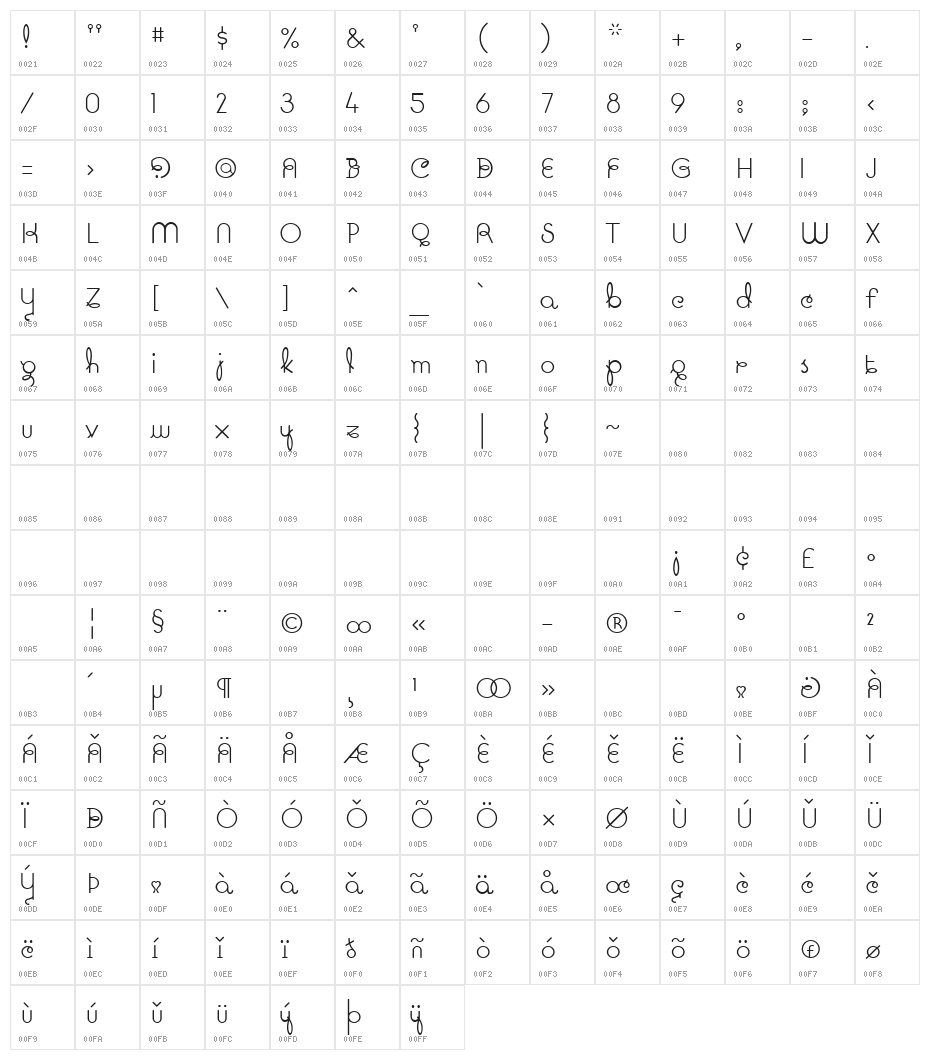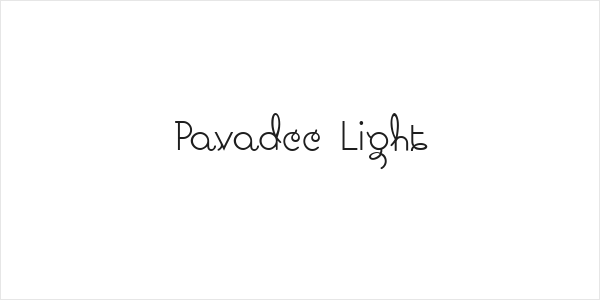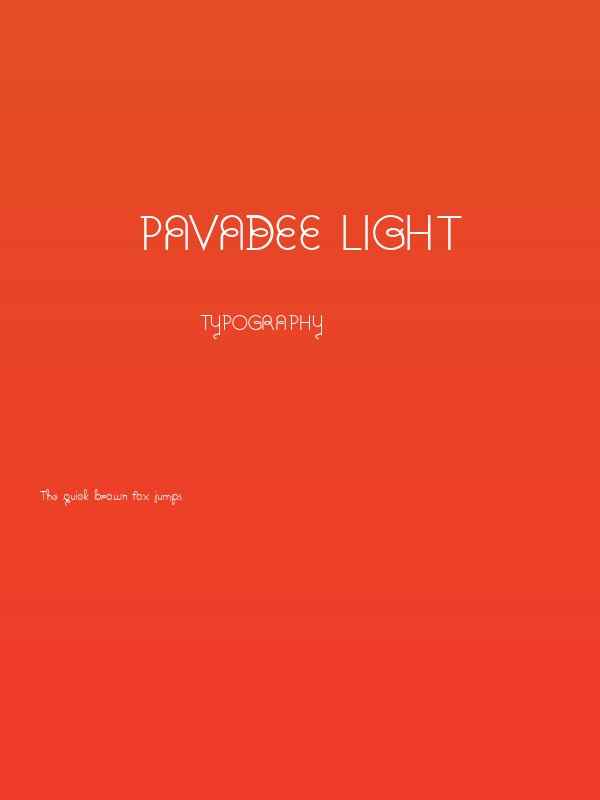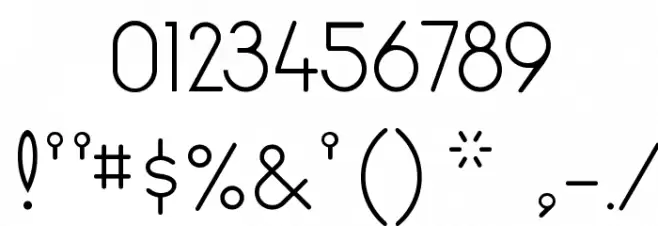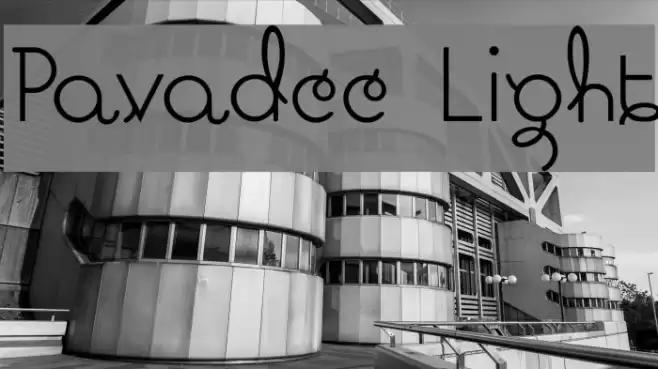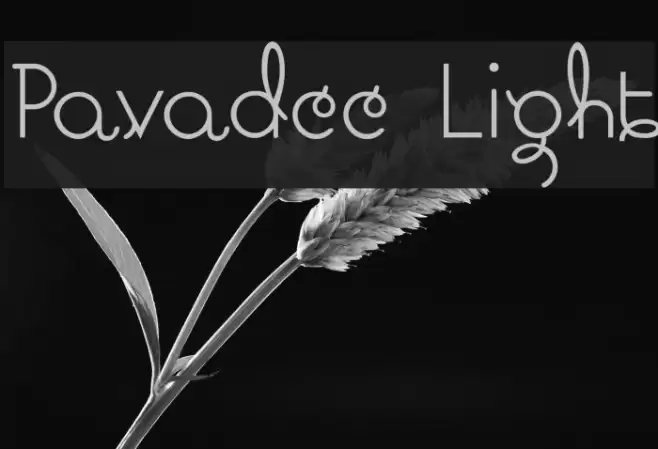
Pavadee Light Font
Pavadee Light Description
This font features a unique and playful design with a modern twist. The characters are crafted with a combination of rounded and angular elements, creating a distinctive and artistic appearance. The uppercase letters have a consistent height and maintain a clean line, while the lowercase letters introduce a more whimsical and flowing style. Numbers and special characters are designed to match the overall aesthetic, ensuring a cohesive look across all text. The font's light weight and open structure make it suitable for creative projects that require a touch of elegance and individuality.
| Use Case | Logos, Headlines, Creative projects |
| Proposed Projects | Ideal for branding, invitations, posters, and creative projects that seek a distinctive and artistic flair. |